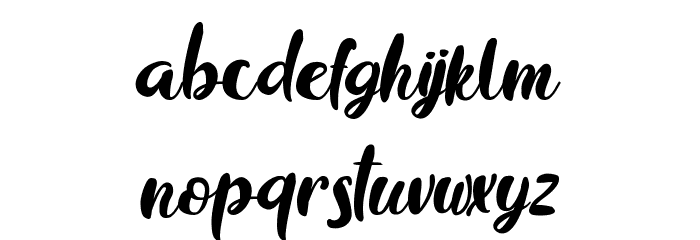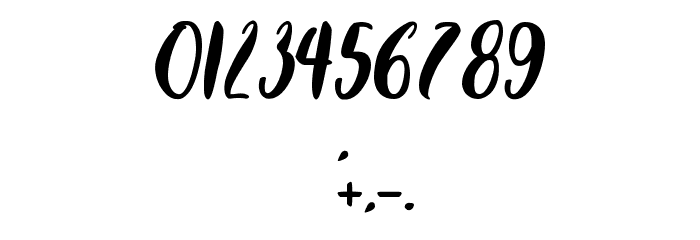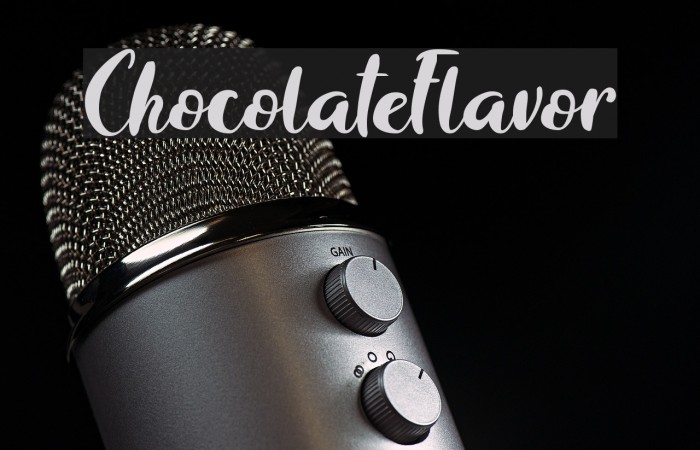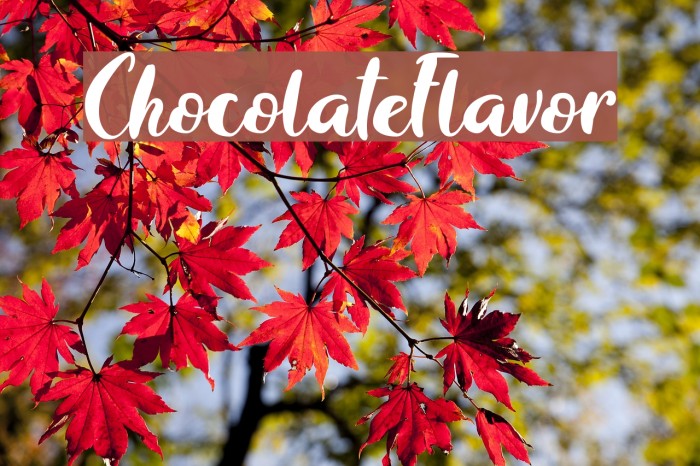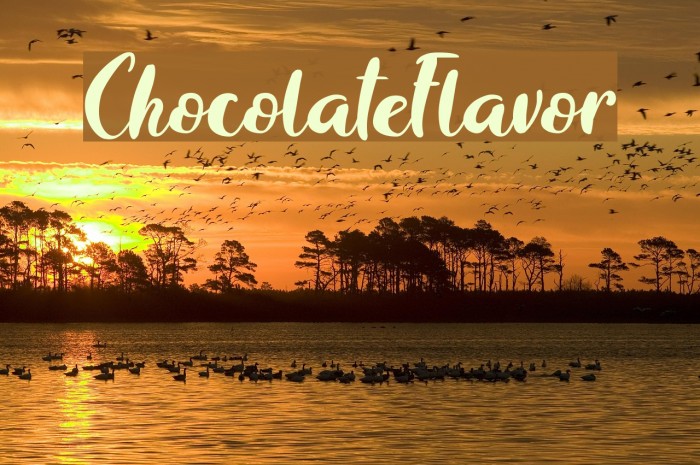
ChocolateFlavor Font
This font exudes a playful and energetic vibe with its bold, flowing script style. The characters are crafted with smooth, rounded edges and a consistent stroke width, giving it a cohesive and polished appearance. The uppercase letters are slightly taller and more pronounced, while the lowercase letters maintain a friendly and approachable look. The numerals are clear and easy to read, matching the overall style of the alphabet. Special characters are included, adding versatility to the font. Its design is reminiscent of hand-lettered calligraphy, making it ideal for projects that require a personal touch.
A bold, playful script font with a hand-lettered calligraphy style.
- Proposed Projects: Ideal for greeting cards, invitations, branding, and social media graphics.
- Use Case: Logos, Headlines, Invitations